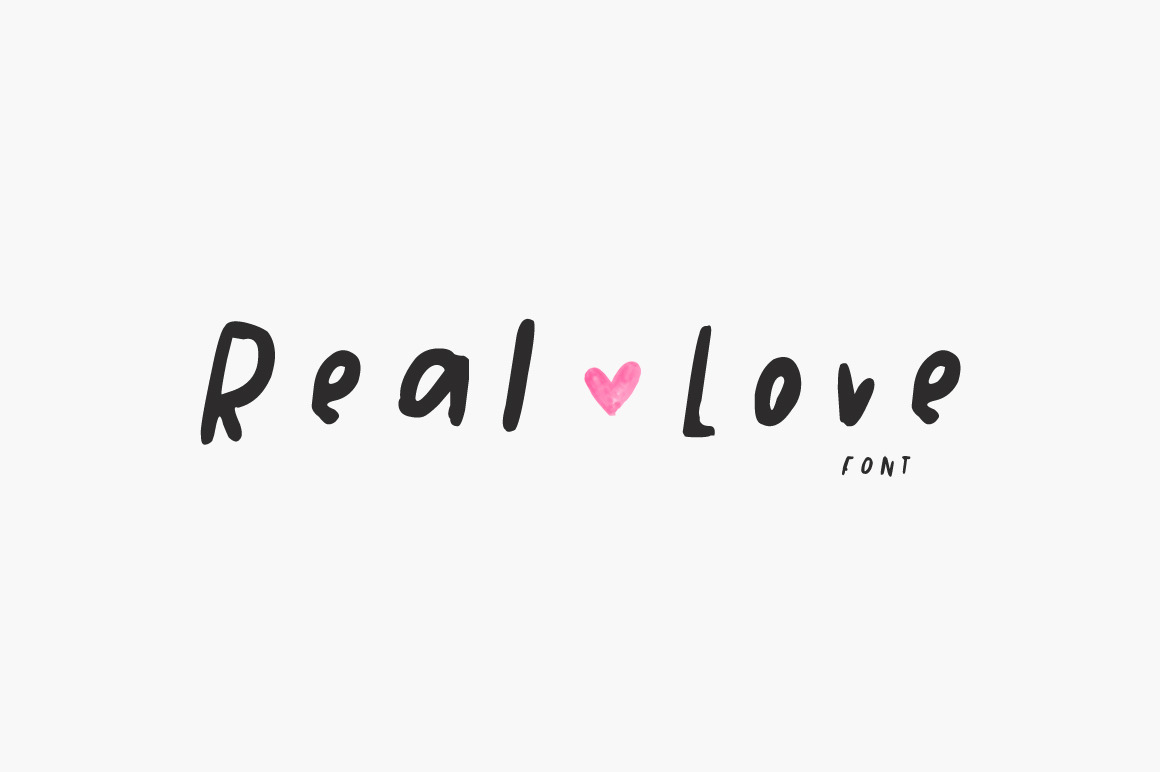
Real Love Whimsical Handwritten Font
Real Love is a handwritten font with a cute style that looks great as a display font or in small texts. Use it to create quotes, posts, business cards or any project that needs a sweet handmade style.
- Uppercase and Lowercase characters
- Numerals and punctuation